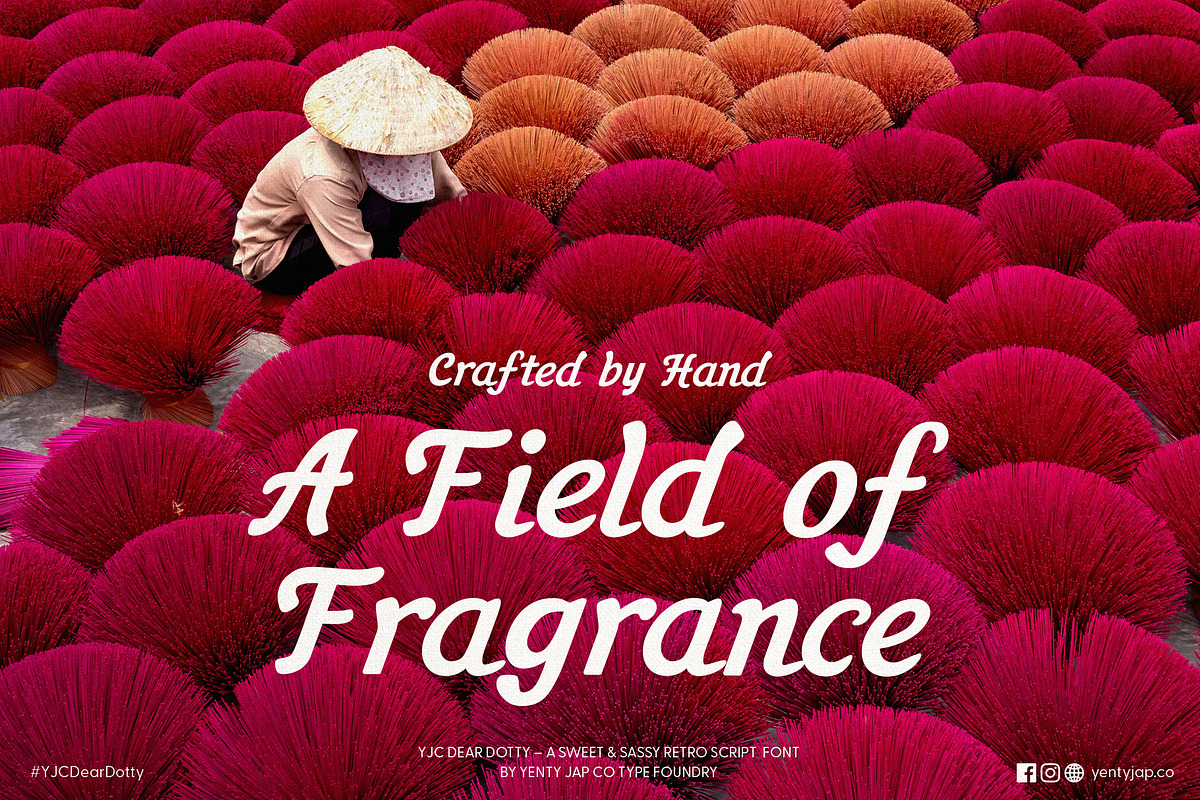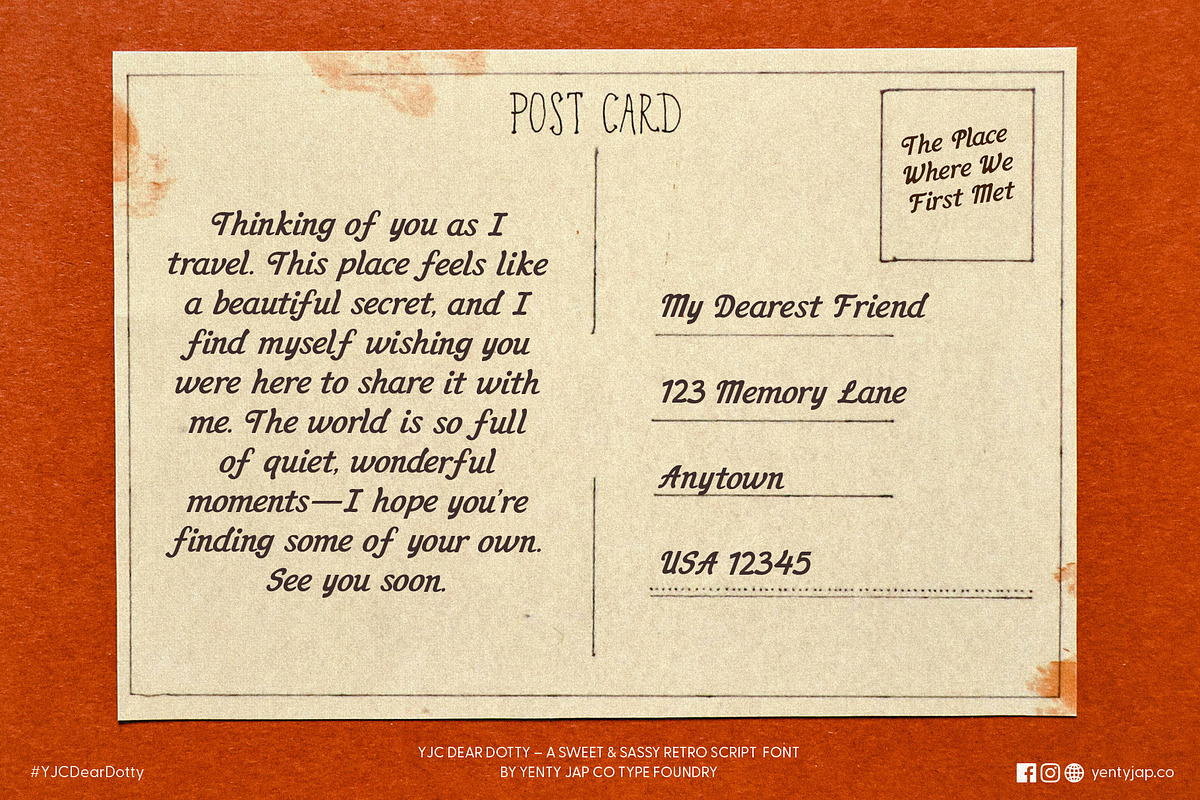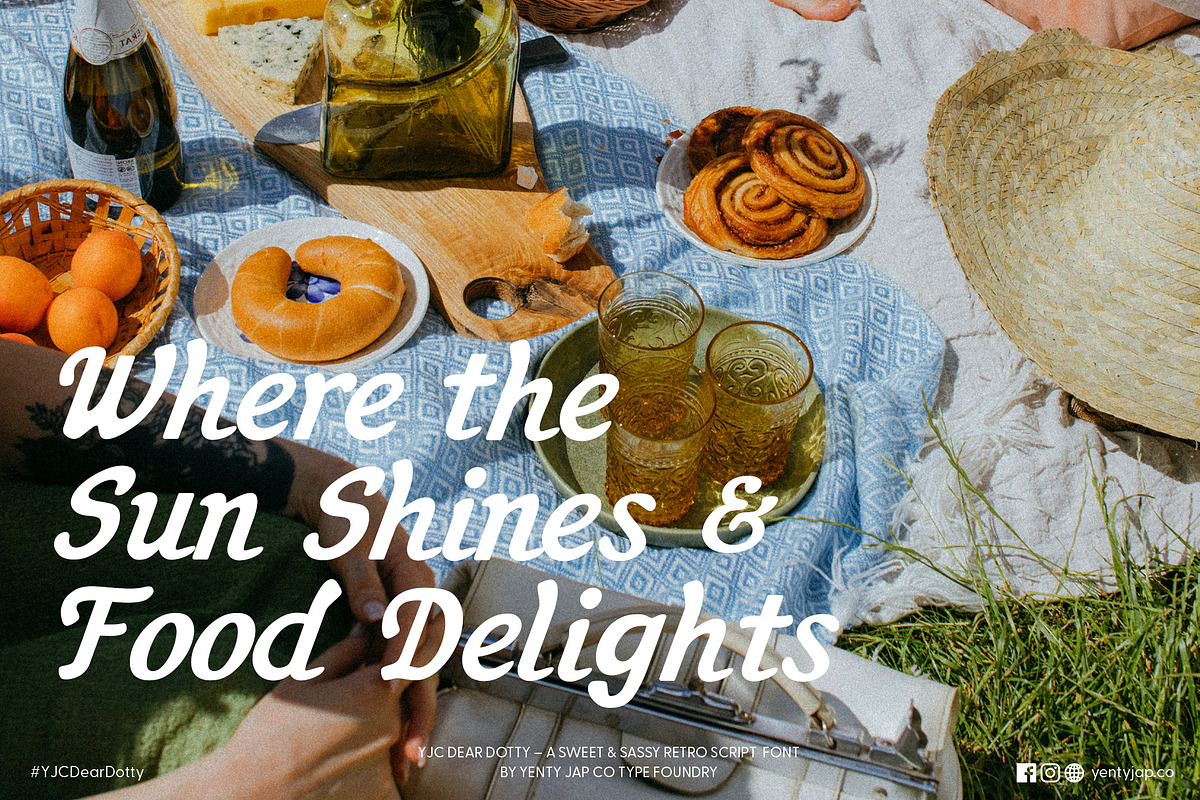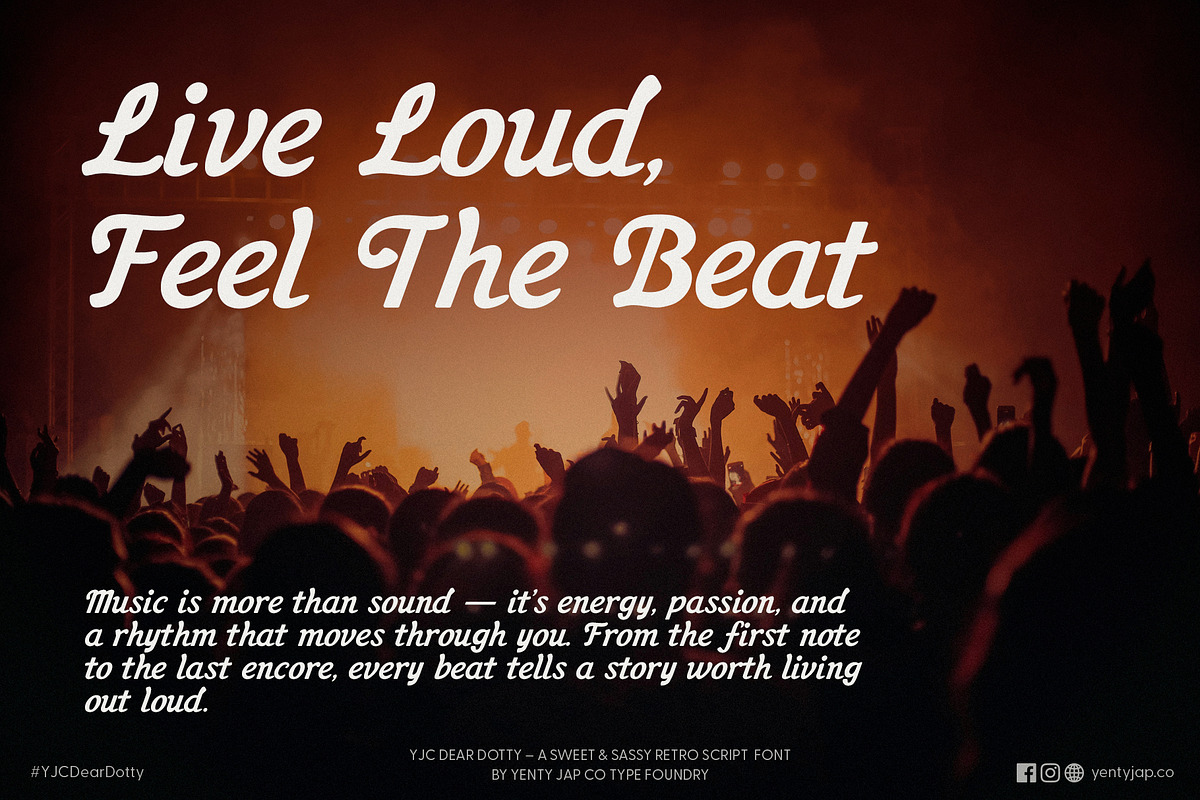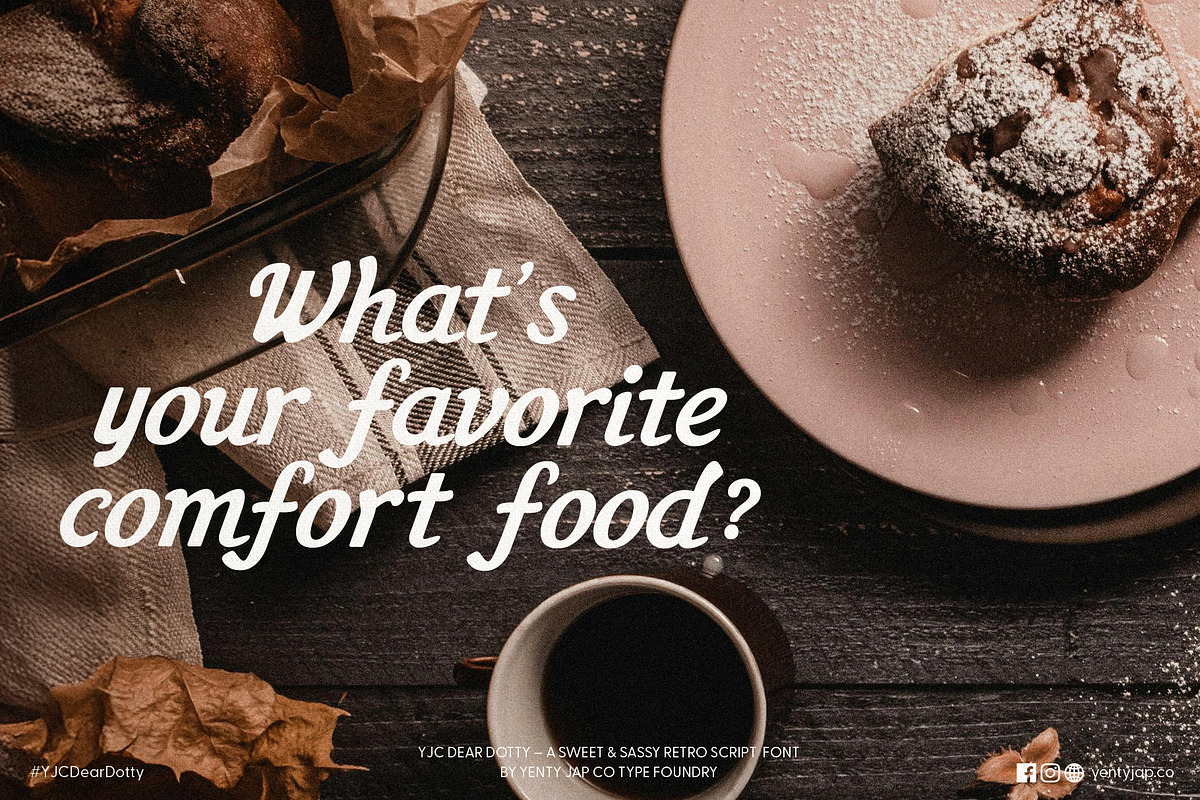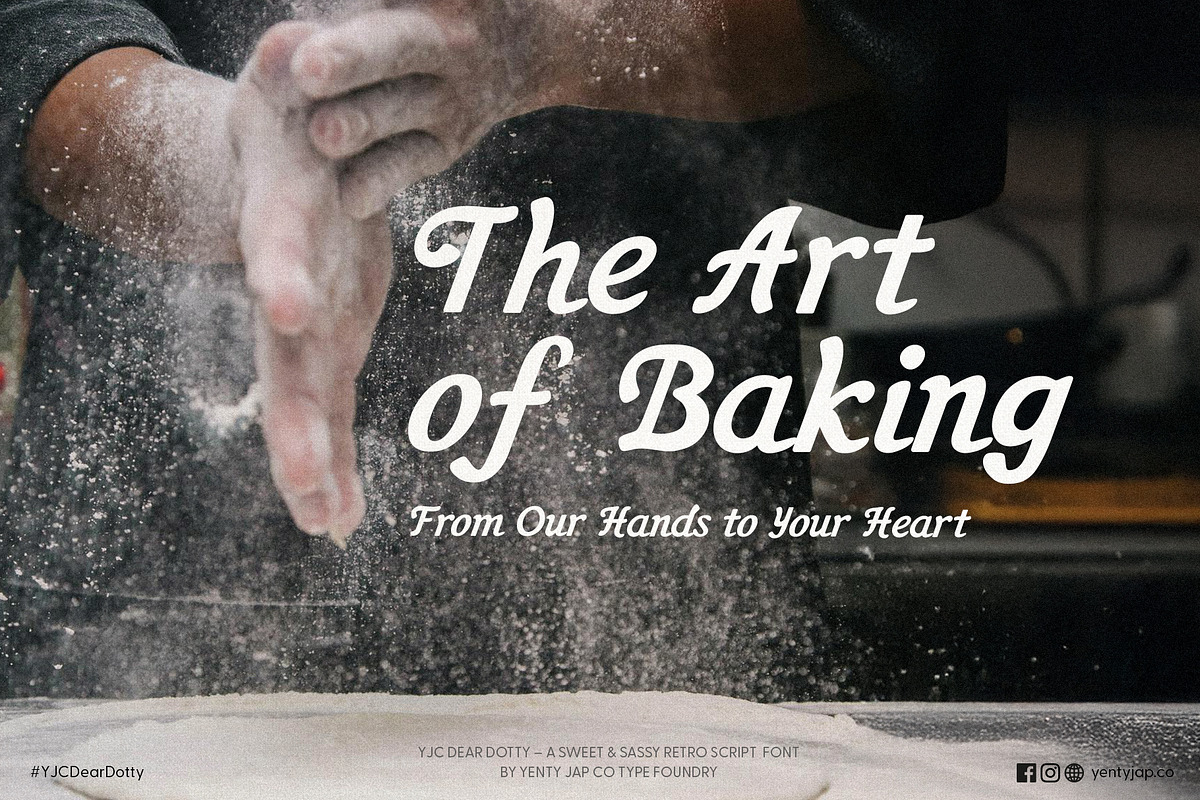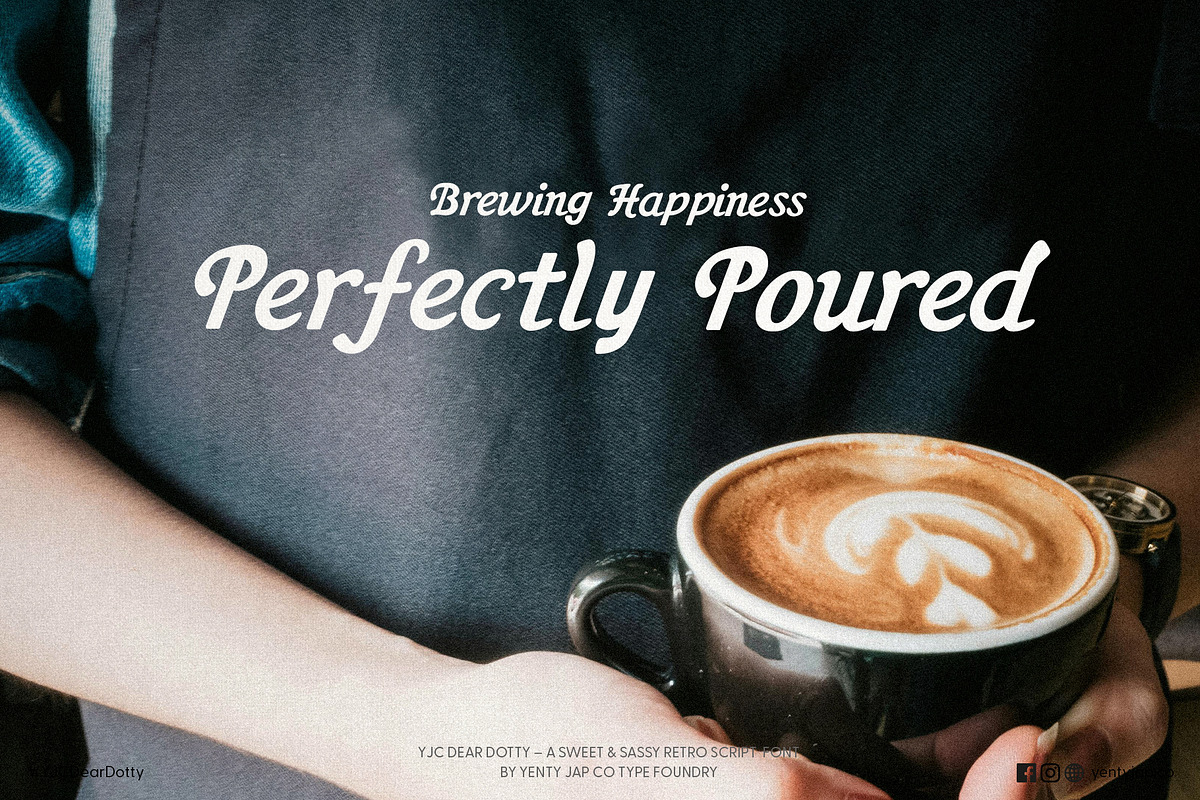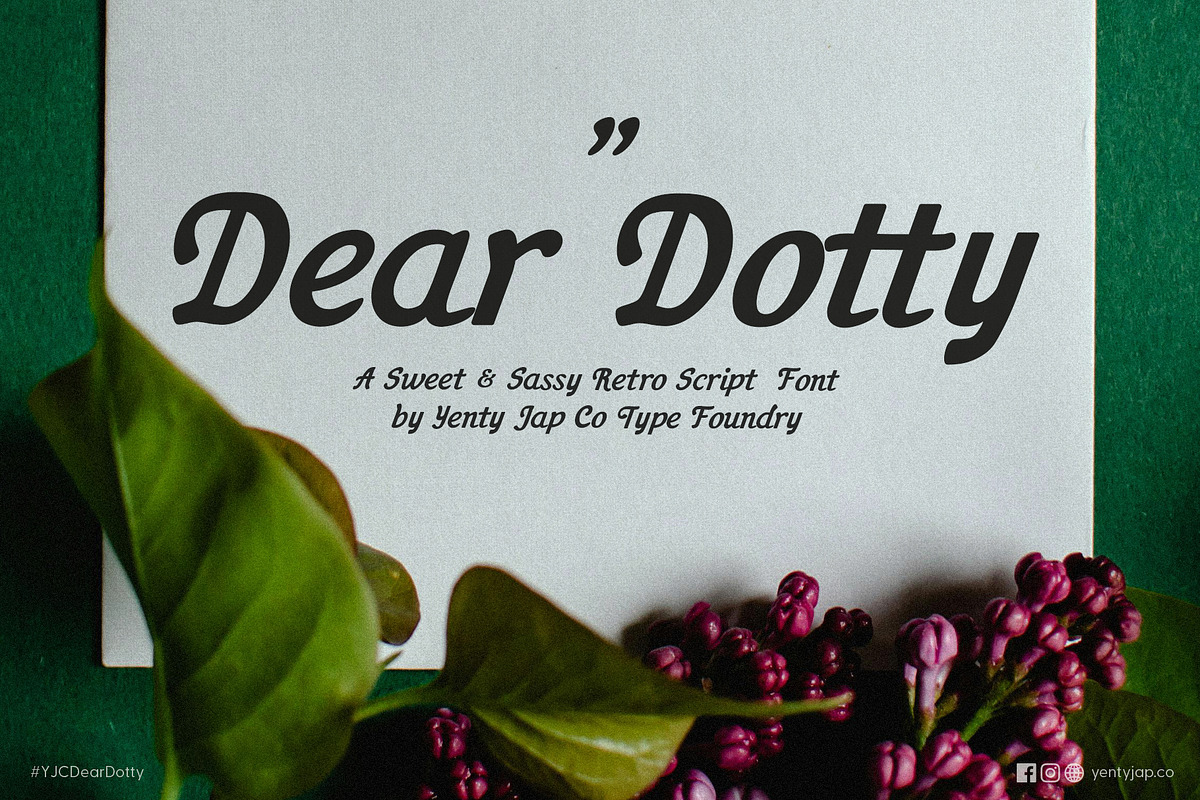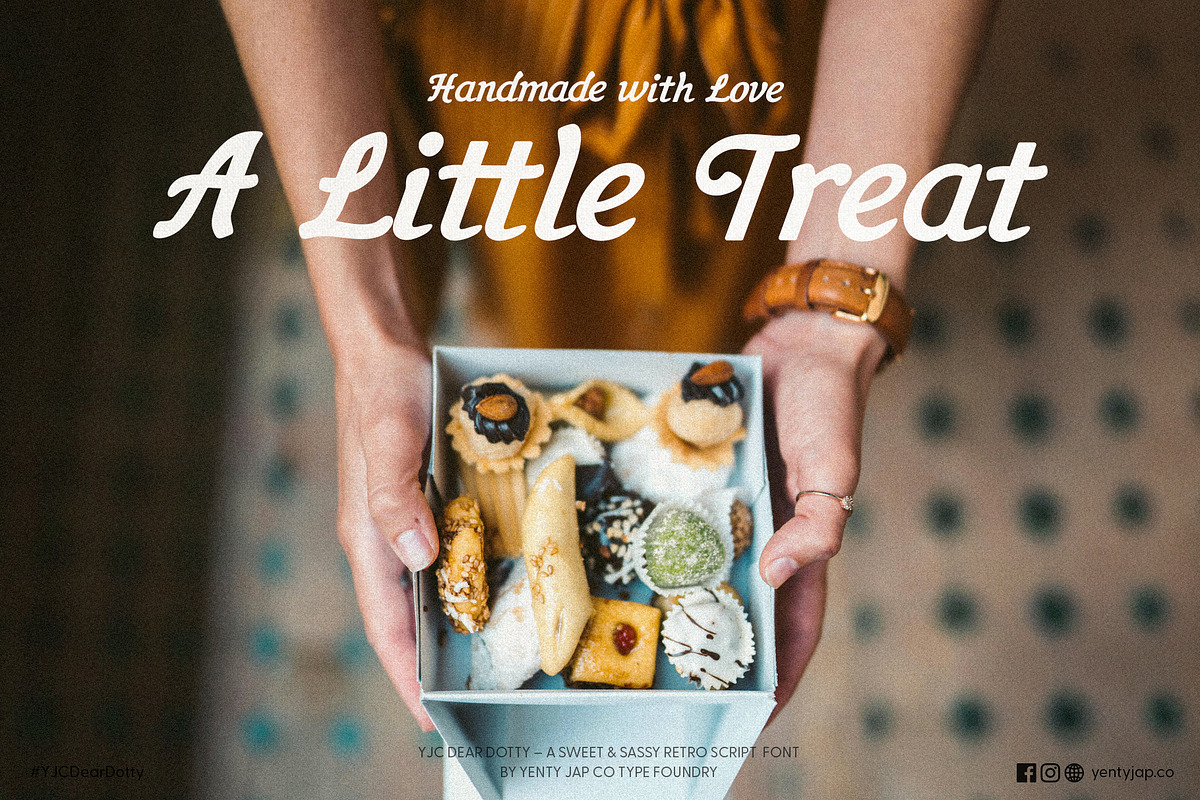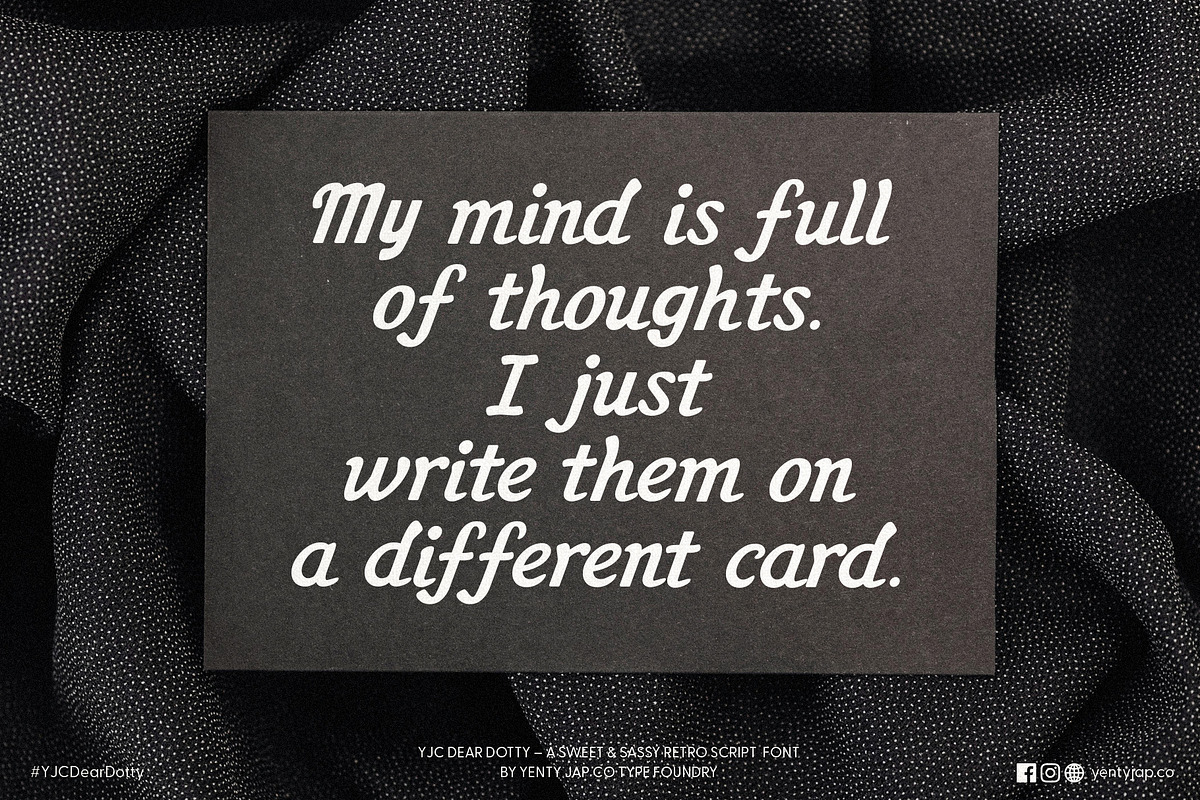
YJC Dear Dotty
Bring retro charm and confident style to your next project with YJC Dear Dotty, a bold script-inspired display font crafted with character and versatility in mind. With its strong curves, smooth flow, and nostalgic details, this typeface is perfect for creating standout logos, packaging, signage, posters, and merchandise that need a touch of vintage soul.
Whether you’re designing for a coffee shop, craft brewery, retro diner, sports team, festival poster, or boutique brand, YJC Dear Dotty gives your words a bold presence that captures attention and leaves a lasting impression.
Full uppercase alphabet
Lowercase alphabet
Smooth vintage-inspired strokes
Perfectly suited for logos, packaging, apparel, and signage
Food & beverage branding (coffee cups, menus, neon diner signs)
Music & entertainment (concert posters, vinyl covers, festival banners)
Sports & lifestyle (team logos, jerseys, streetwear)
Retro/nostalgic projects (road trip posters, motel signs, classic cars)
Packaging & retail (labels, tote bags, handmade goods)
Bring your words to life with the bold, timeless energy of YJC Dear Dotty — designed to make every project unforgettable.